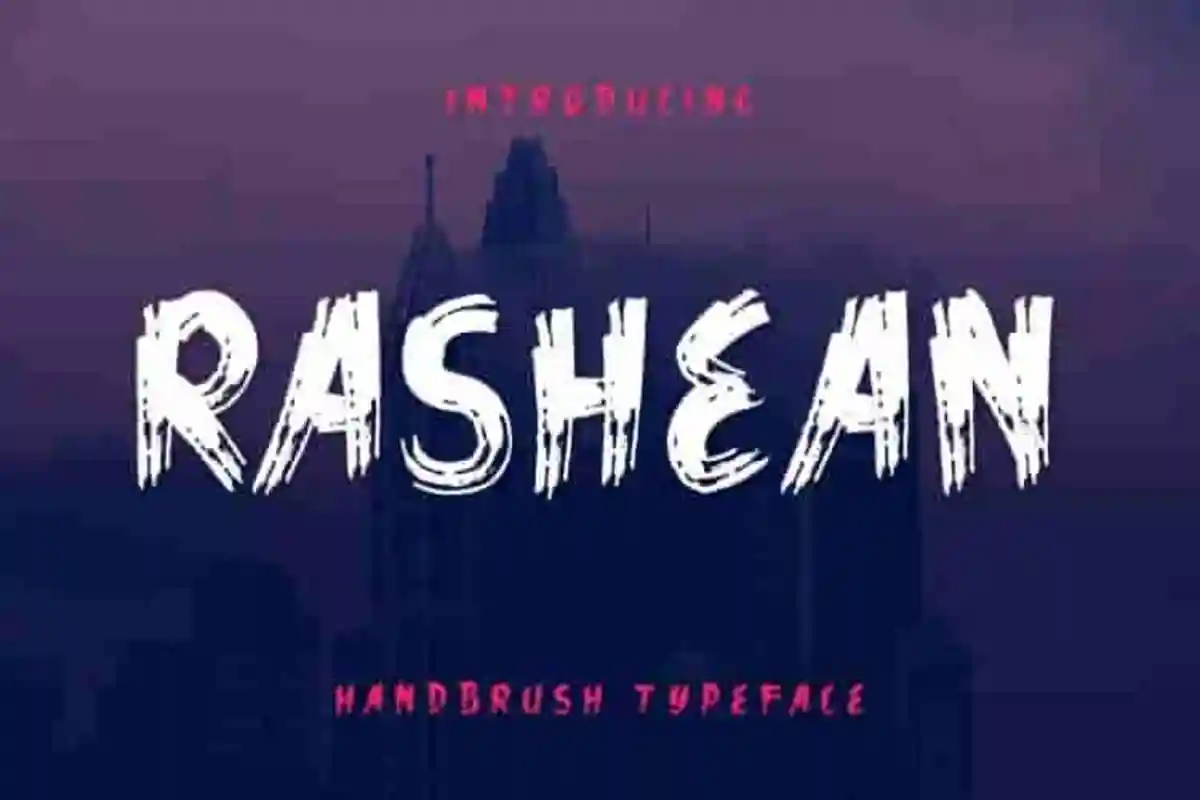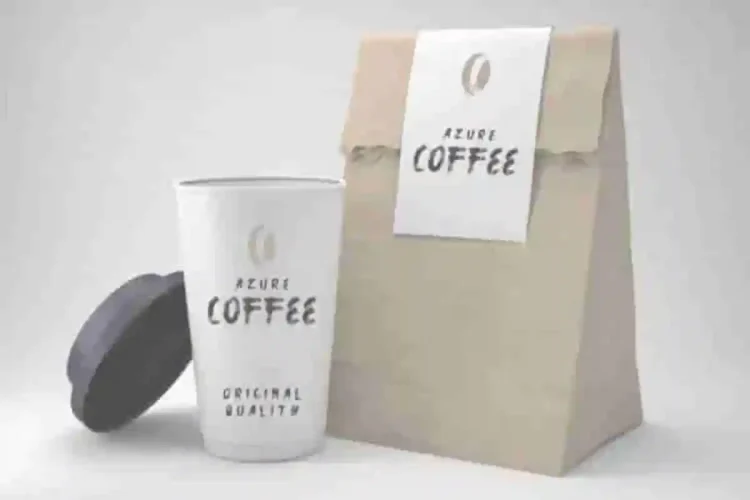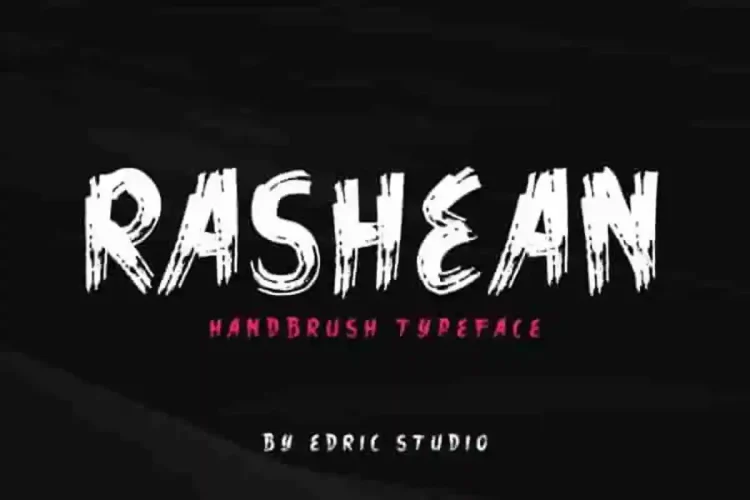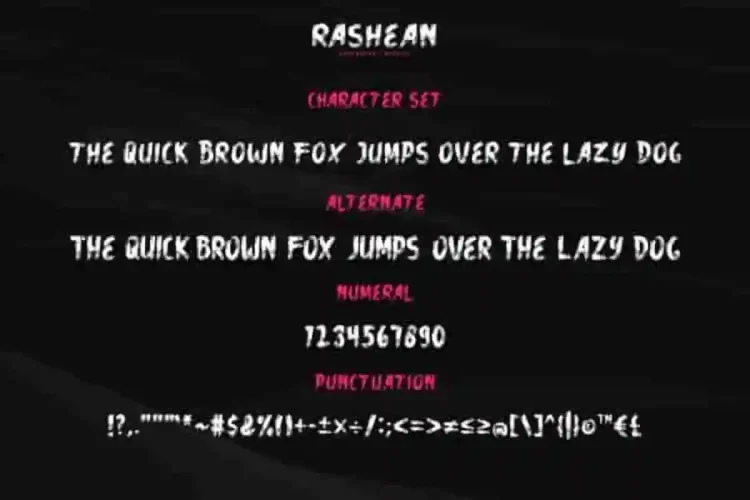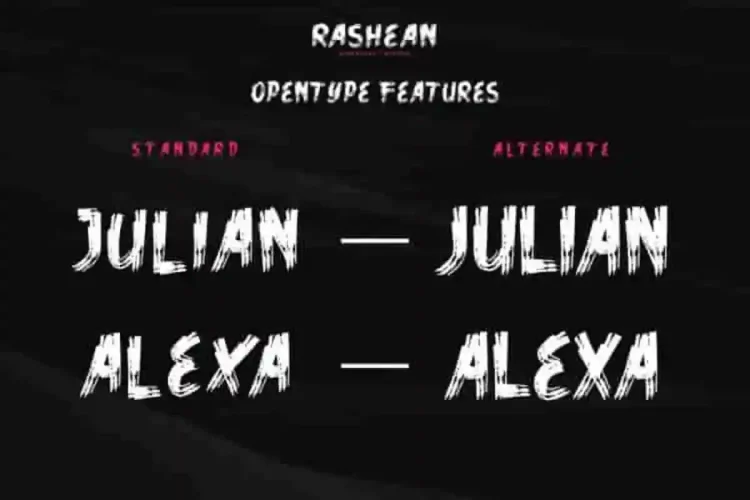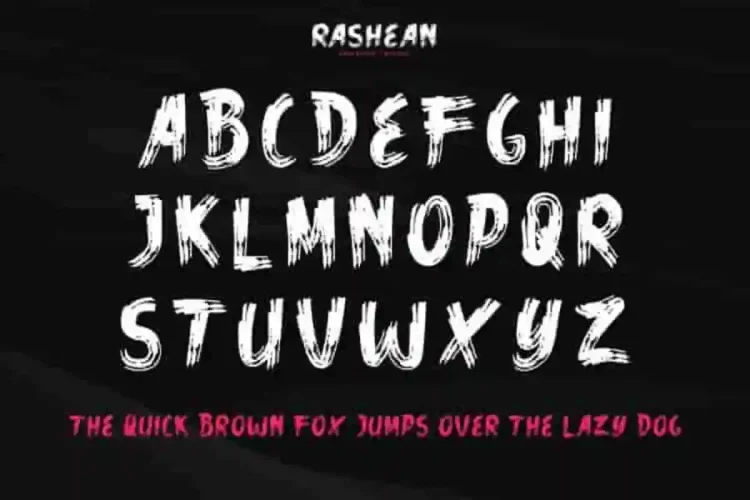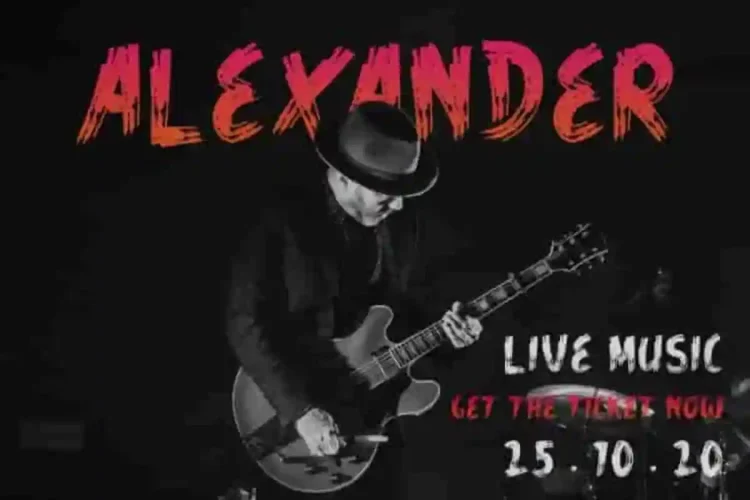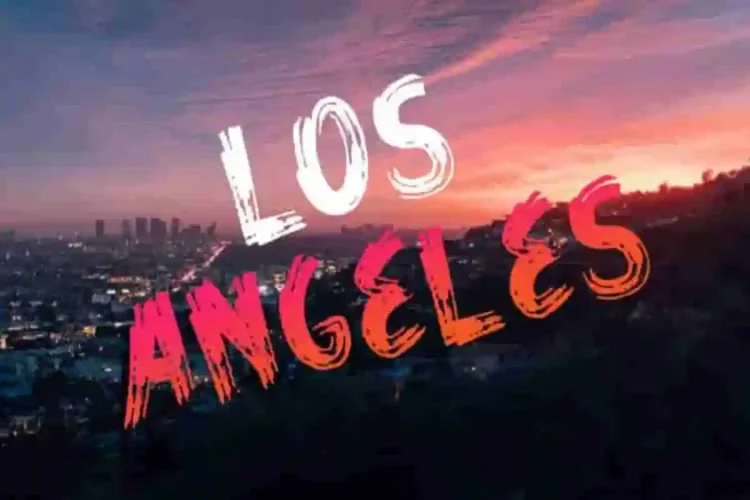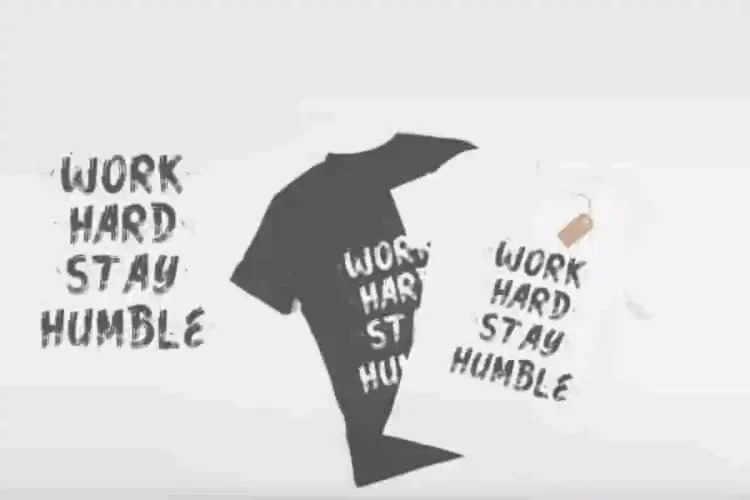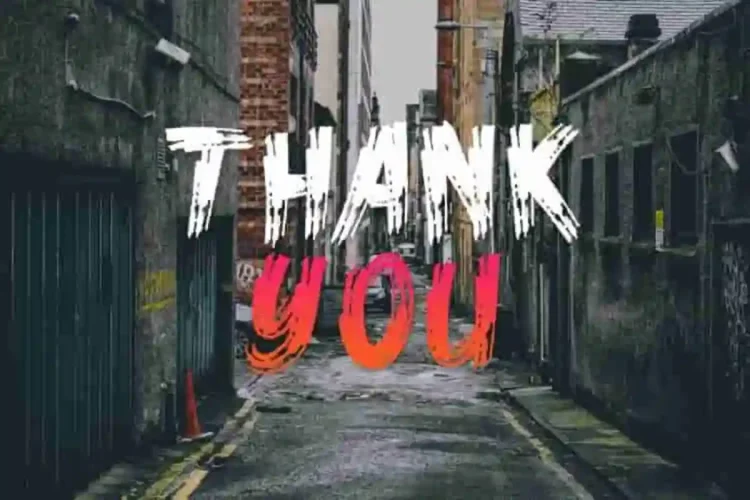
Rashean Blackletter Script Font
Please meet! Rashean Blackletter Font. Made by two of our lovely artists : Ali and Suci.
Rashean Blackletter Font is an exclusive blackletter style typeface with a stunning effect. The typeface has a stunning characters set, perfectly kerned and spaced. The style characters of this font is elegant, misterious, textured and rough.
Rashean Blackletter Font is great for any projects (with extended license) including : branding, logotype, stationery, business card, signage, flyer, brochure etc. Many projects will be match for this typeface : events, travel, hotel, musician, cafe, packaging, food and beverage, etc